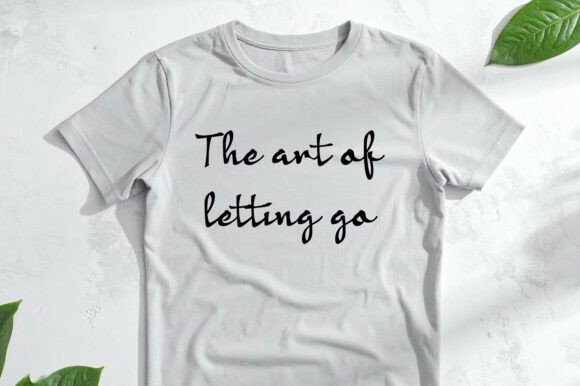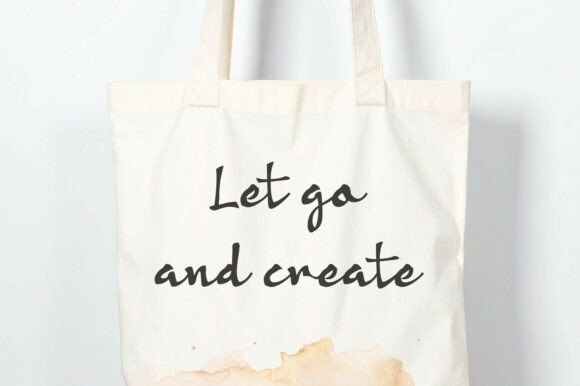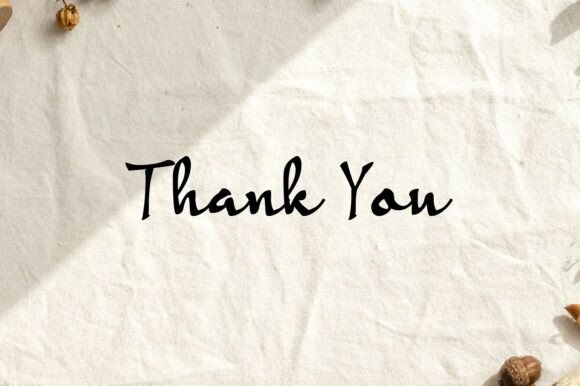
Discover the Elegance of Ambyar Sobat Font: A Handwritten Script Typeface
In the world of typography, few fonts manage to capture the essence of elegance and personal expression as beautifully as the Ambyar Sobat font. This handwritten script typeface stands out for its fluidity, artistic flair, and the unique touch it brings to any design project. Whether you’re a designer looking for a sophisticated yet informal font or a crafter seeking to add a personal touch to your creations, Ambyar Sobat is an excellent choice.
The Distinctive Features of Ambyar Sobat
The Ambyar Sobat font boasts several distinctive features that set it apart from other typefaces. Its brush-stroke appearance and natural, free-flowing connections give it an authentic, artistic feel that is both elegant and gently informal. Here are some of the key characteristics that make Ambyar Sobat so unique:
- Fluid & Graceful Strokes: The letters in Ambyar Sobat flow seamlessly into one another, creating a sense of movement and elegance typical of sophisticated brush lettering. This fluidity ensures that the text reads smoothly and looks refined.
- Artistic & Personal Touch: Ambyar Sobat has the warmth and uniqueness of genuine handwriting, making any message feel more intimate and specially crafted. This personal touch is perfect for designs that require a human element.
- Versatile Readability: Despite its artistic nature, the letterforms in Ambyar Sobat are generally clear, ensuring that it’s legible for titles and short phrases. This balance of style and function makes it a versatile font for various design needs.
- Gentle Irregularity: Subtle variations in the baseline and letter connections add to its handmade charm, preventing it from looking overly rigid or digital. This gentle irregularity contributes to its authentic, hand-crafted feel.
What is Ambyar Sobat Good For?
Ambyar Sobat is ideal for a wide range of design projects, including:
- Branding and Logos: The elegant and personal touch of Ambyar Sobat makes it perfect for branding and logo design, especially for businesses that want to convey a sense of sophistication and warmth.
- Invitations and Stationery: Its artistic and informal feel makes it an excellent choice for invitations, greeting cards, and other stationery items.
- Packaging and Product Design: Ambyar Sobat can add a unique and personal touch to product packaging, making it stand out on store shelves.
- Digital and Print Media: Whether you’re designing for digital platforms or print, Ambyar Sobat’s versatility ensures that it will look great across various mediums.
Why Choose Ambyar Sobat?
In a sea of digital and uniform fonts, Ambyar Sobat stands out for its unique blend of elegance, personality, and versatility. Here are a few reasons why designers and crafters should consider Ambyar Sobat for their projects:
- Unique Aesthetic: Ambyar Sobat offers a distinctive look that can elevate any design project, making it memorable and impactful.
- Emotional Connection: The font’s personal and artistic touch can help create an emotional connection with the audience, making your message more relatable and engaging.
- Flexibility: Suitable for a variety of design needs, from elegant titles to short phrases, Ambyar Sobat adapts well to different contexts and applications.
The Ambyar Sobat font is a beautiful example of how typography can be both elegant and personal. Its fluid strokes, artistic touch, and versatile readability make it an excellent choice for designers and crafters looking to add a unique and sophisticated element to their projects. Whether you’re working on branding, invitations, packaging, or digital media, Ambyar Sobat is sure to bring a touch of elegance and warmth to your designs.
Incorporating Ambyar Sobat into your design repertoire can open up new possibilities for creative expression and help you stand out in a crowded design landscape. So, if you’re looking for a font that combines style, personality, and versatility, look no further than Ambyar Sobat.